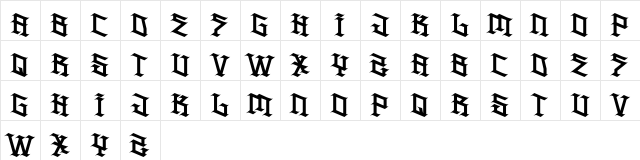
H74 Spitfire Regular
Design Context for H74 Spitfire Typeface
H74 Spitfire is a composed and adaptable typeface that performs quietly and consistently across a wide range of design contexts.